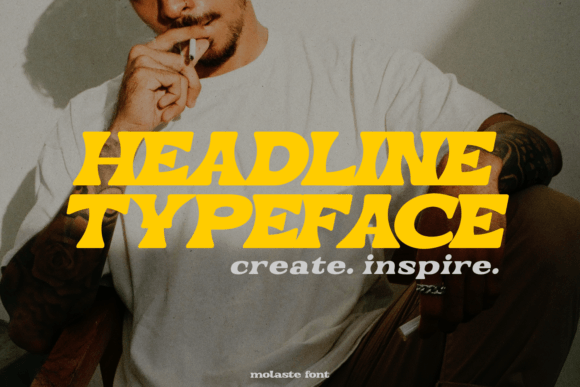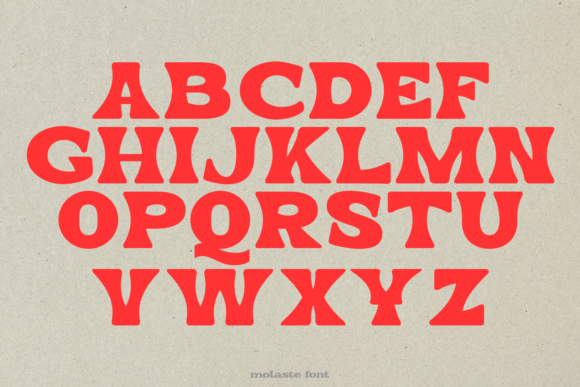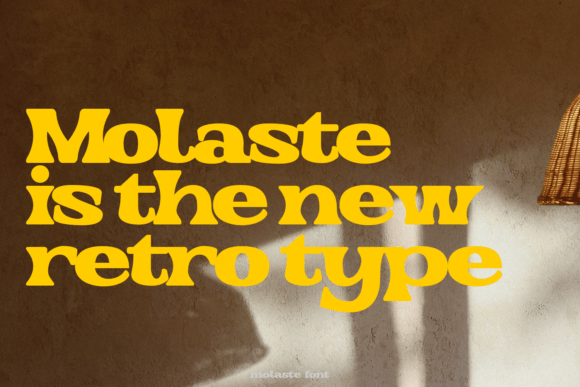
Introduction to Molaste Font
Molaste is a retro font that comes with an 80s retro-style serif.
You can explore and combine creating a rhythm for comfortable reading Vintage and refined use of this font for any branding, product packaging, invitation, quotes, headline, label, poster, logo, etc.
Key Features of Molaste Font